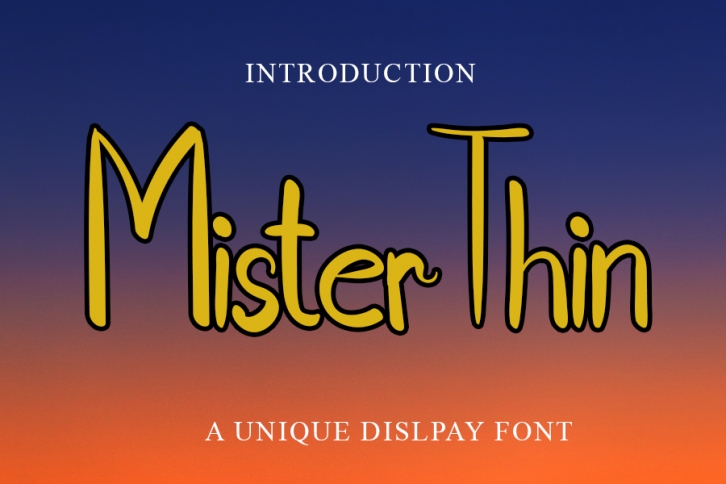
Mister Thin is a dainty and cute handwritten font. With a nostalgic feel and an elegant style, this typeface is perfect for book titles, romantic movies, cover magazines, and more!